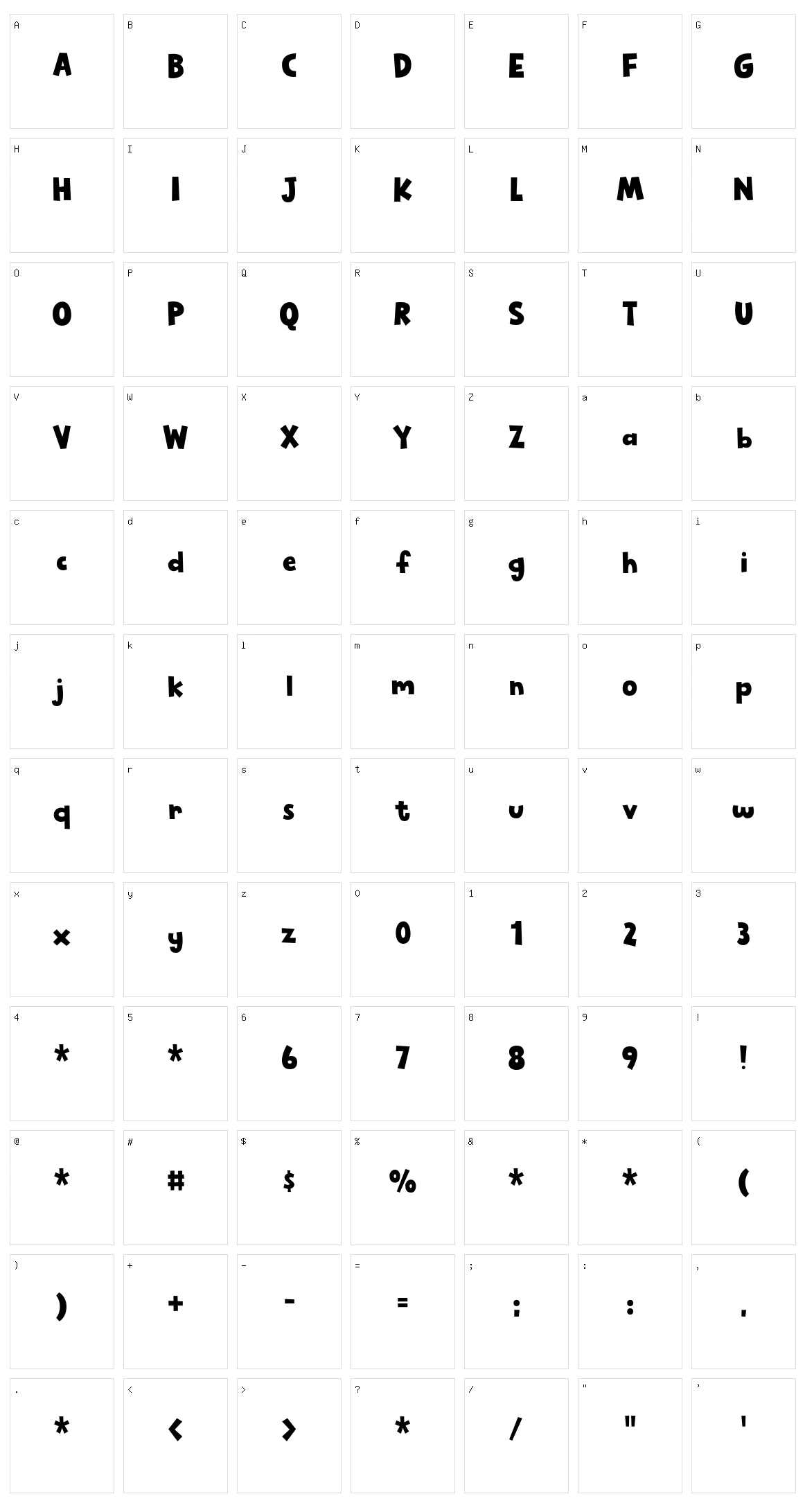
The free font Creative Genius is carefully designed by Pizzadude, showcasing a thoughtful balance of creativity and usability and falls under the Cartoon font style. When you download the ZIP file, it contains only 8.79 KB of font files, making it lightweight and quick to download. Please review the license details below to understand permitted usage and distribution rights. If license information is not available, we recommend using this font for personal projects only or contacting the author directly for commercial usage permissions.